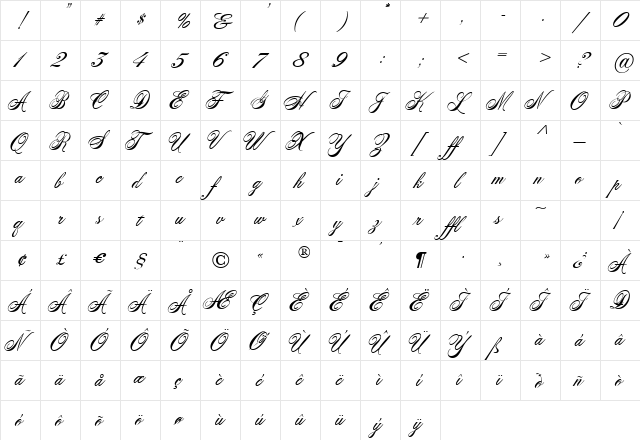
AcroterionJF Regular Font Preview
AcroterionJF Regular
AcroterionJF Regular Font Details
Design Context for AcroterionJF Typeface
AcroterionJF is a composed and adaptable typeface that performs quietly and consistently across a wide range of design contexts.